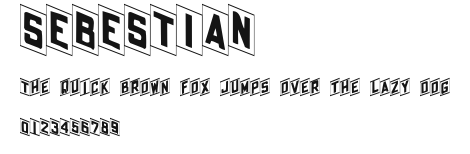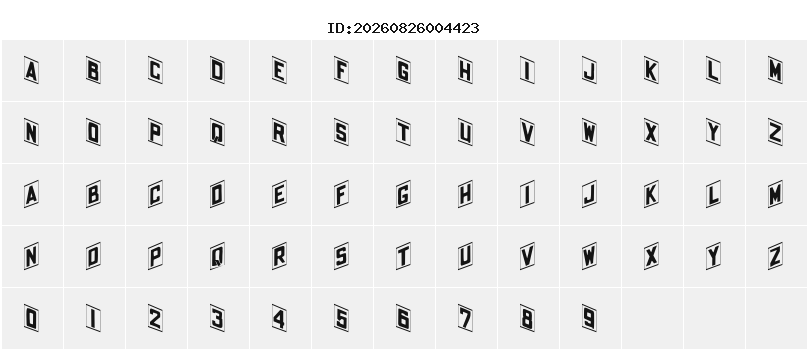
• Font Name: SEBESTIAN
• Font ID: Altsys Fontographer 3.5 SEBESTIAN Regular
• Full Font Name: SEBESTIAN Regular
• Version: Altsys Fontographer 3.5 3/17/97
• PostScript Name: SEBESTIAN Regular
• Character Count: 101
About SEBESTIAN.ttf
SEBESTIAN.ttf is a modern, elegant sans-serif font designed for ultimate readability and visual harmony. Perfect for branding, headlines, web design, and print materials.